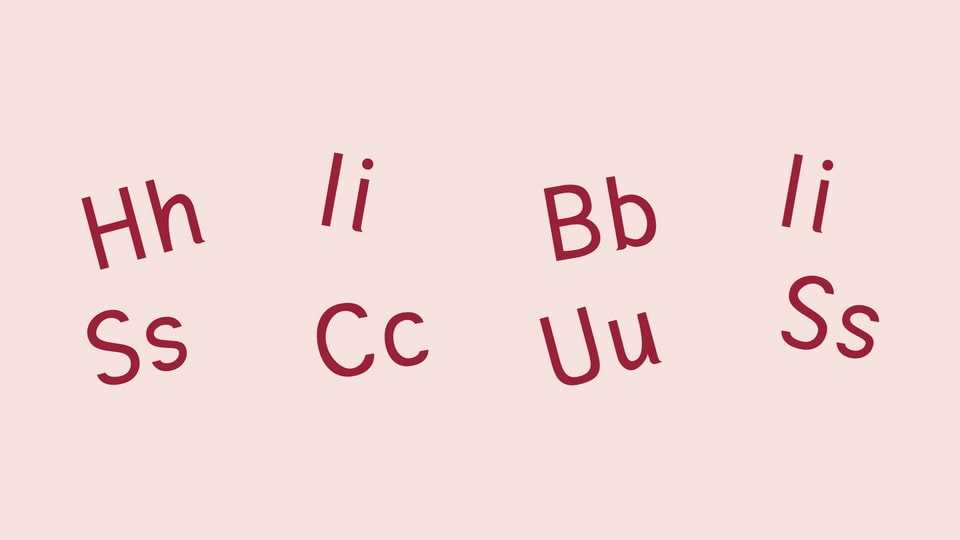
Download Hibiscus Sans font, a playful sans-serif typeface with a charming handwritten touch, designed to bring joy and personality to any project.
Designer: Maya Sundar